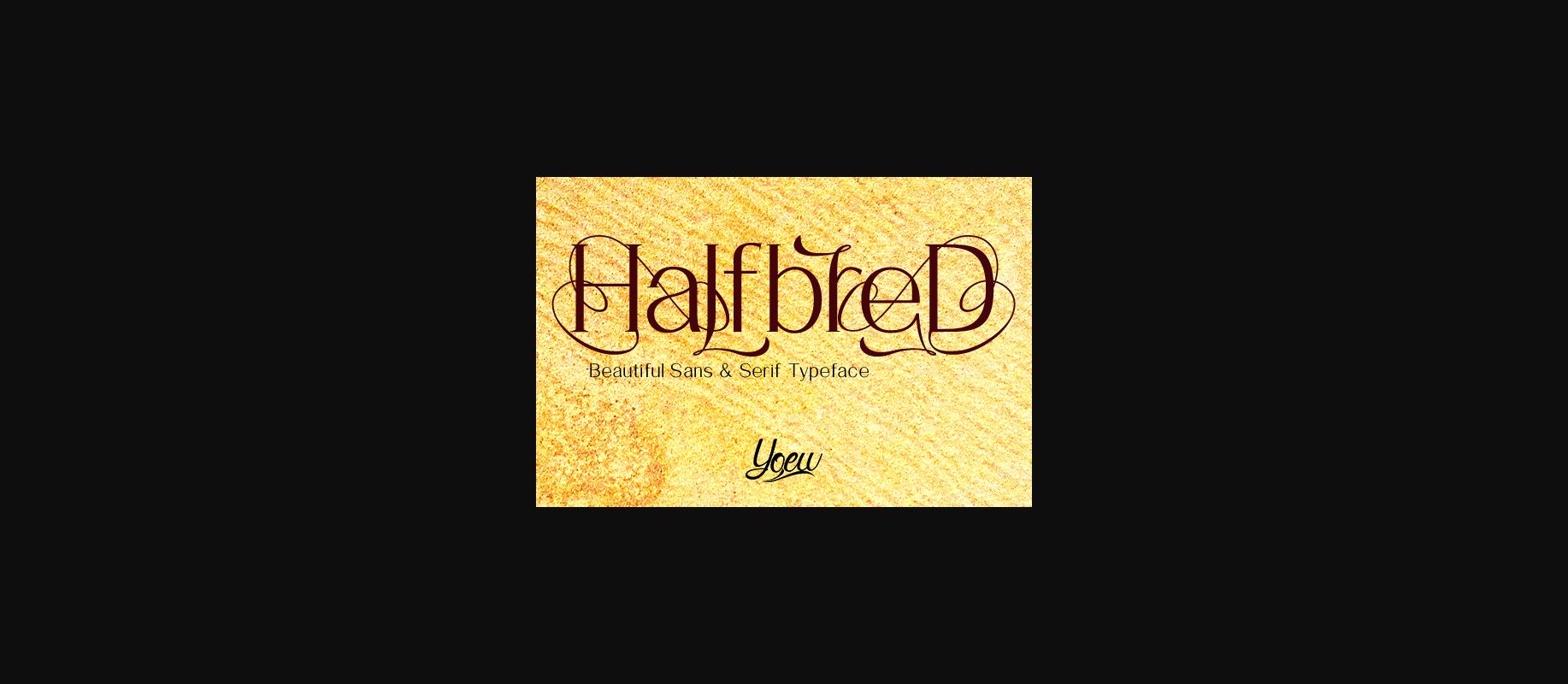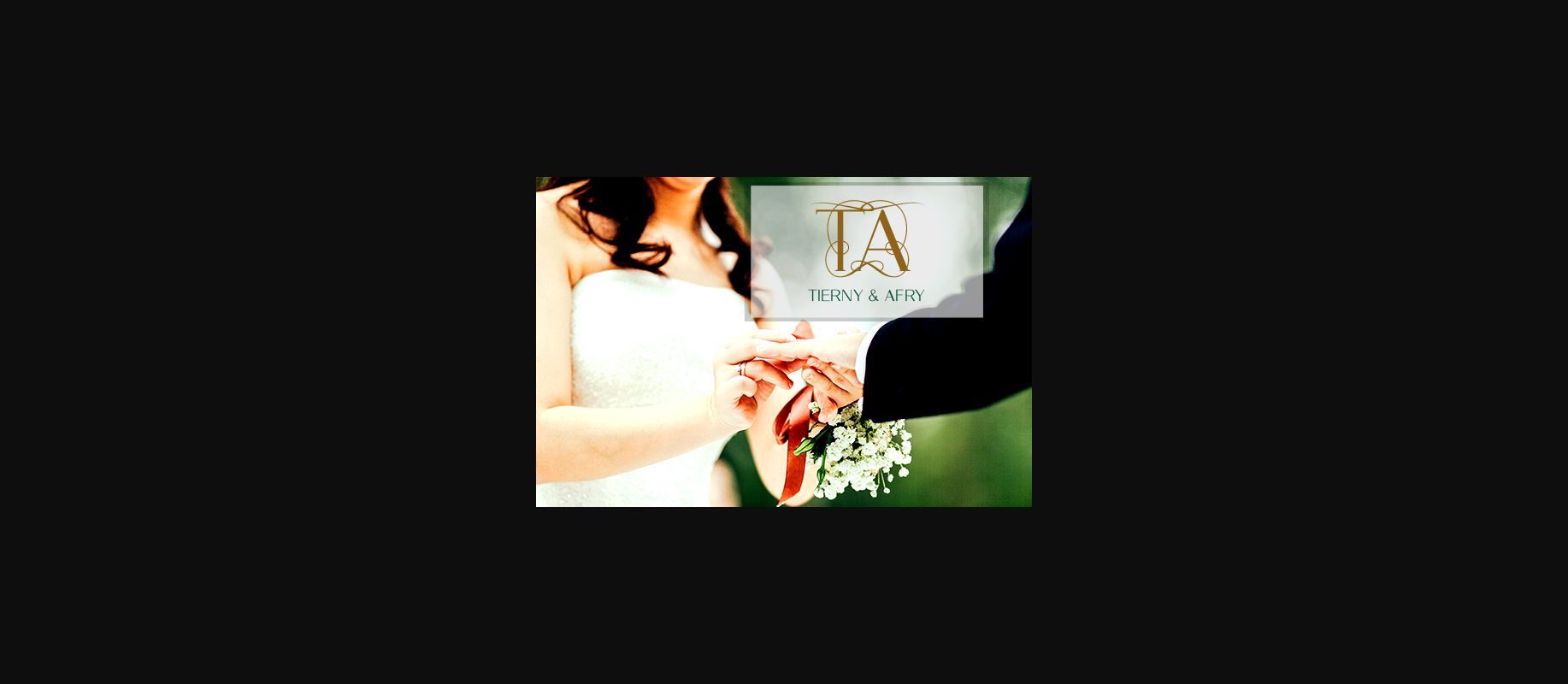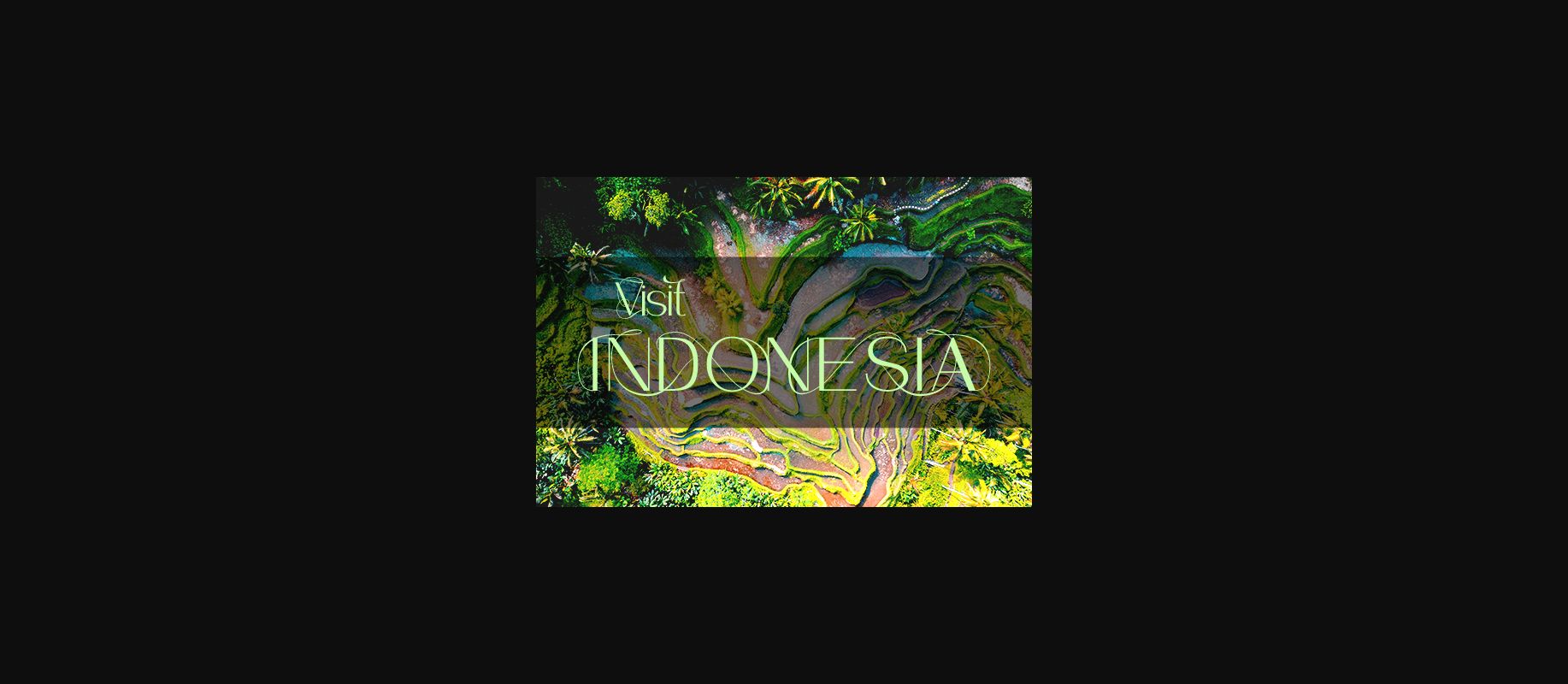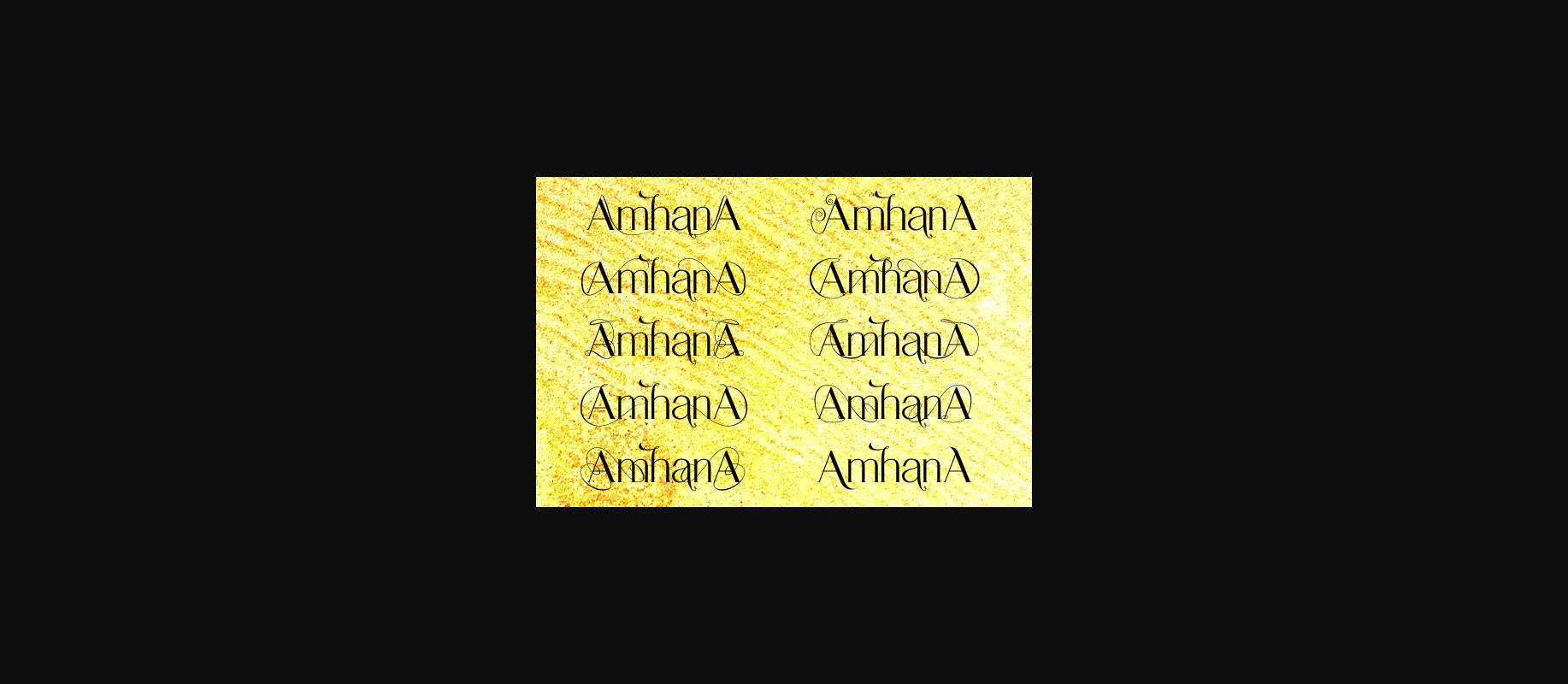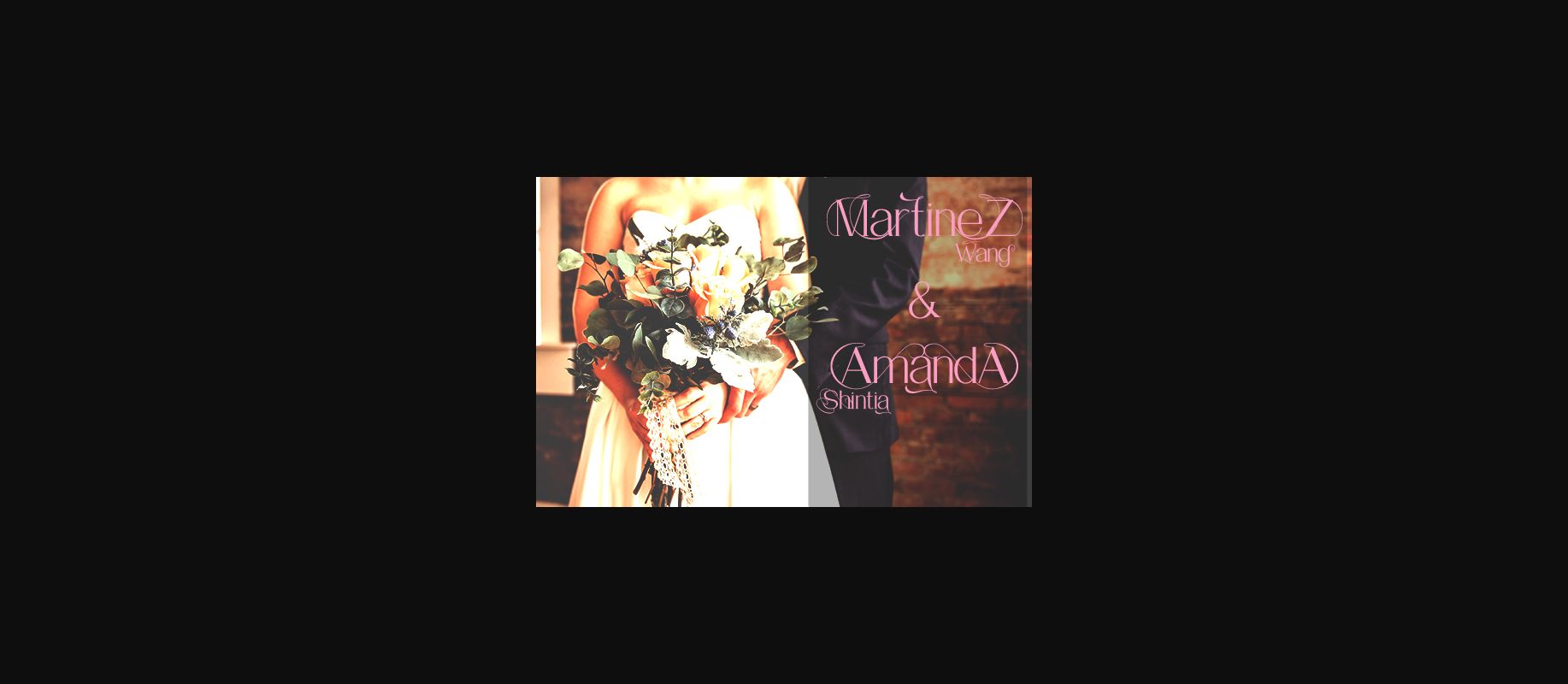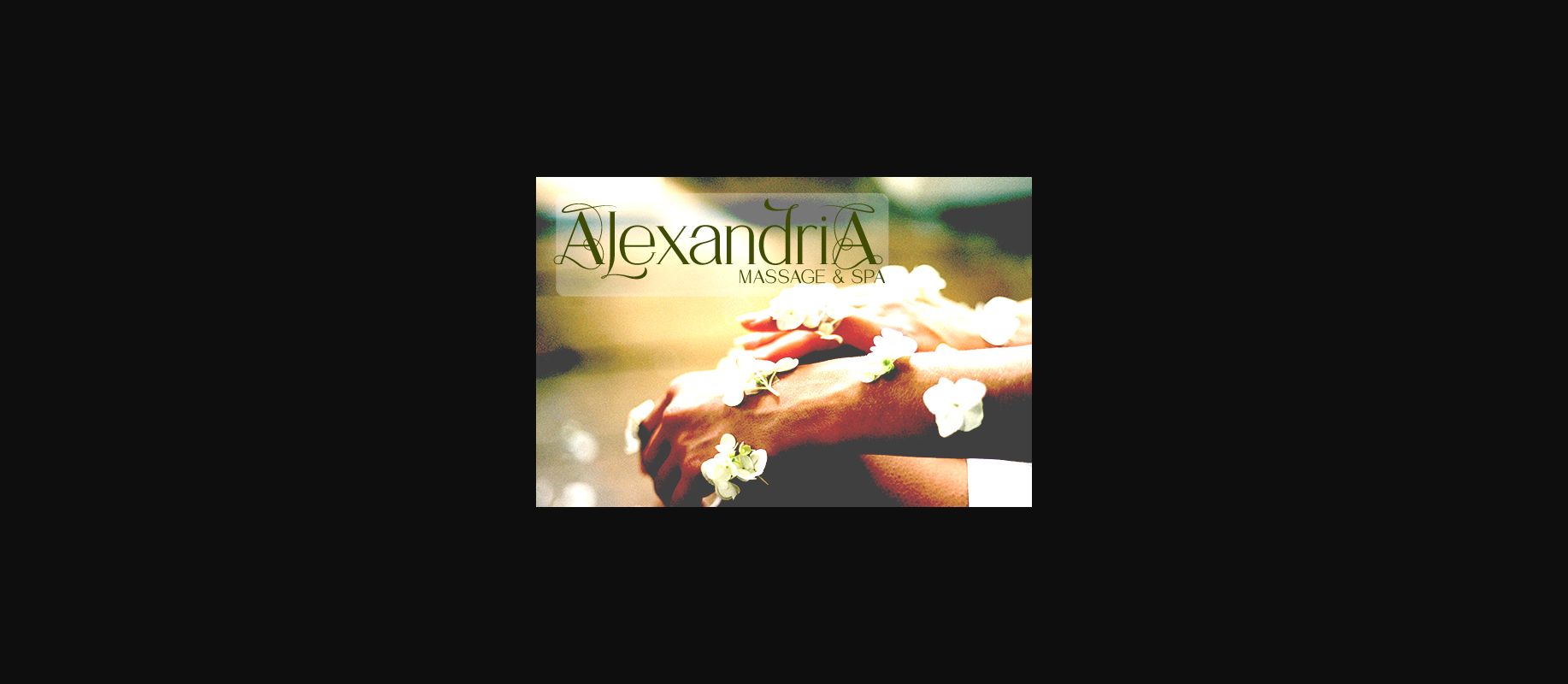
About HalfbreD Font
HalfbreD simplifies elegance into one truly outstanding decorative font. This fantastic font is best suited for headlines of all sizes, as well as for blocks of text that have both maximum and minimum variations. Whether it’s for web, print, moving images or anything else – HalfbreD will look spectacular.